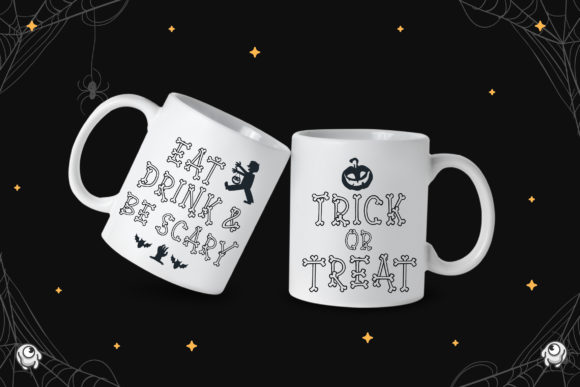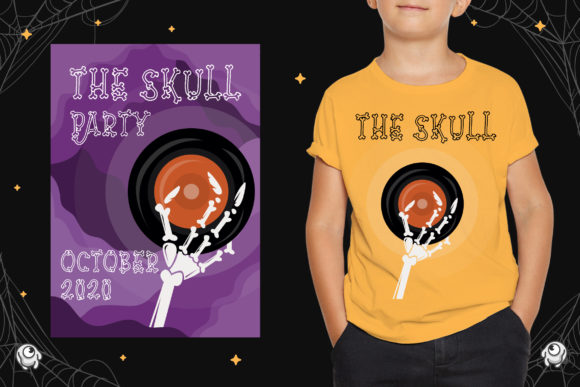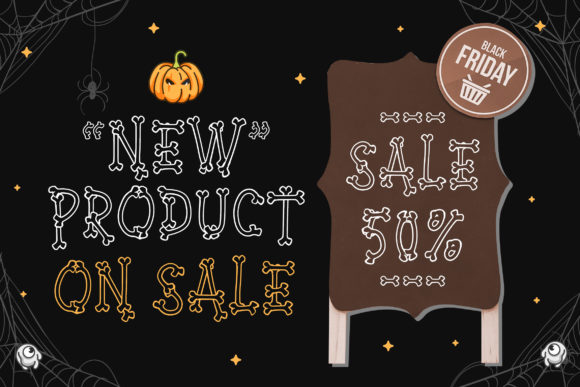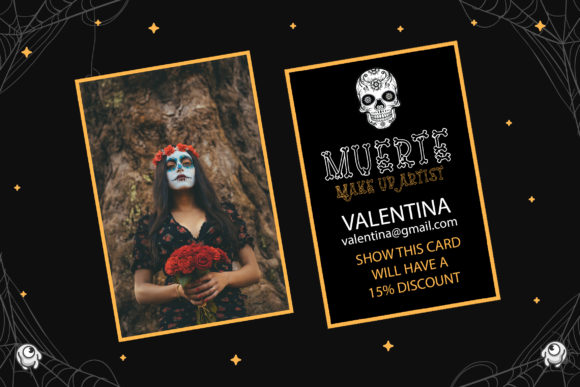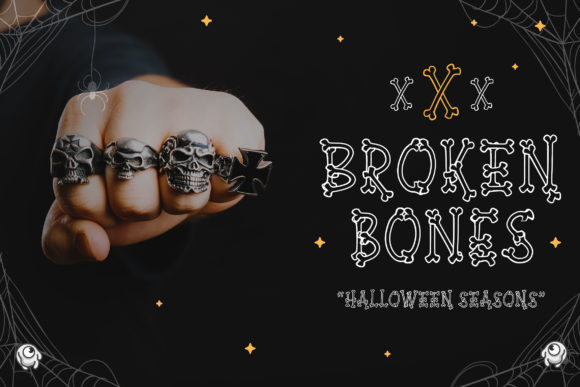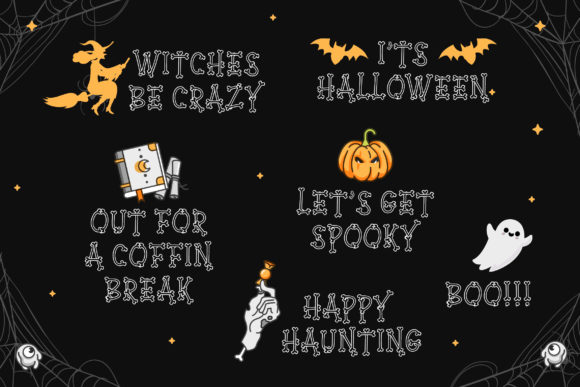
Introduction to Skull Story Font
As a designer, there’s nothing quite like the thrill of staring at a blank canvas, wondering where your next creative project will take you. For me, it often starts with a spark of inspiration – a color palette, a texture, or in this case, a hauntingly beautiful font. I was browsing through design resources one night, searching for the perfect font to elevate my Halloween-themed designs, when I stumbled upon the Skull Story Font. Its unique, high-quality design immediately caught my eye, and I knew I had to learn more.
This free download has since become a go-to design resource for all my spooky projects. With its transparent background and eerie aesthetic, the Skull Story Font is the perfect addition to any creative project. Whether you’re designing a haunted house flyer or a spooky social media post, this font is sure to make your design stand out.
Key Features of Skull Story Font
- High-quality, bold, and elegant design perfect for creative projects.
- Features a transparent background, allowing for easy customization and seamless integration with any design.
- Comes in a range of sizes, from small to large, making it suitable for various design applications.
- Resolution is scalable, ensuring crisp and clear text at any size.
- Unique characteristics include intricate details and a bold, gothic-inspired design aesthetic.
Honest Review: Skull Story Font
I recently came across the Skull Story Font and was immediately drawn to its unique and eerie design. As a designer, I appreciate high-quality fonts that can add an extra layer of depth to a creative project.
- ✨ The font’s transparent background makes it easy to place over any image or background.
- ✨ The font’s bold, gothic design makes it perfect for Halloween-themed projects or anything that needs a touch of darkness.
- ⚠️ The font may not be suitable for projects that require a more neutral or clean design aesthetic.
- ⚠️ Some users may find the font’s boldness overwhelming, so it’s essential to use it in moderation.
Overall, I’m impressed with the Skull Story Font’s unique design and versatility. While it may not be suitable for every project, it’s an excellent addition to any designer’s toolkit, especially for creative projects that require a touch of darkness or eeriness.
Tips for Getting the Most Out of Skull Story Font
Use Skull Story Font to add a touch of elegance to your design. Experiment with different font sizes, colors, and styles to create a unique look. Combine the font with other design elements to create a high-quality design resource. This font is perfect for creative projects, such as wedding invitations, party invitations, or any other design that requires a touch of sophistication.
Skull Story Font is a versatile font that can be used in various design projects, including:
Wedding invitations
Party invitations
Event branding
Graphic design projects